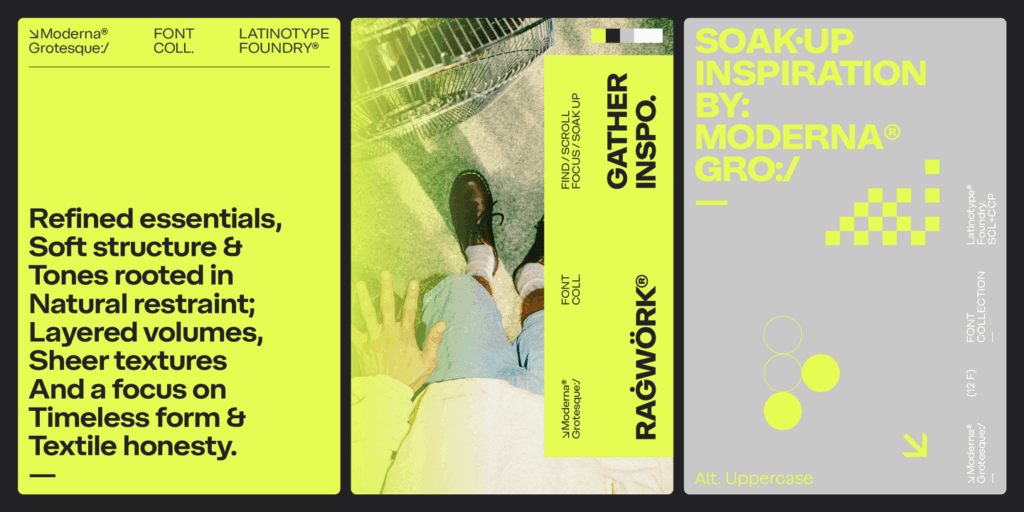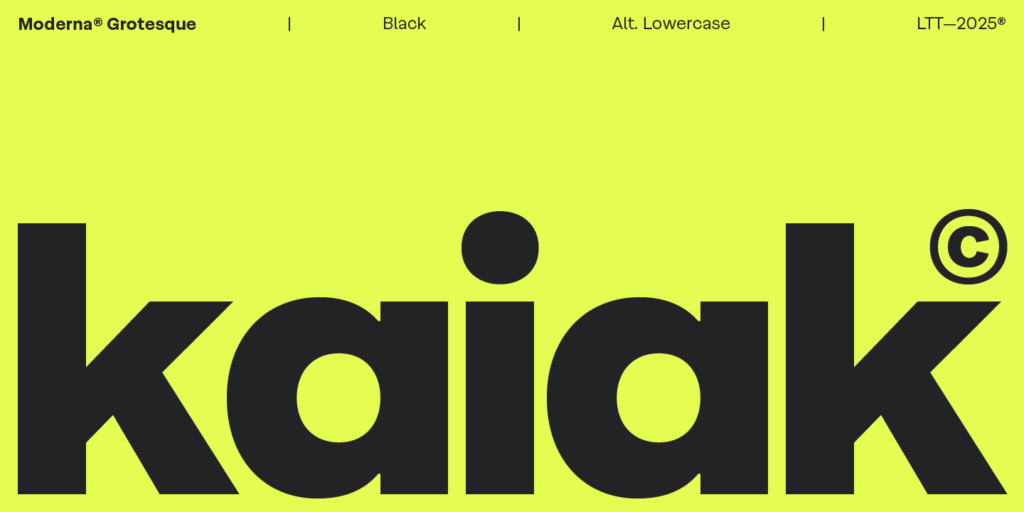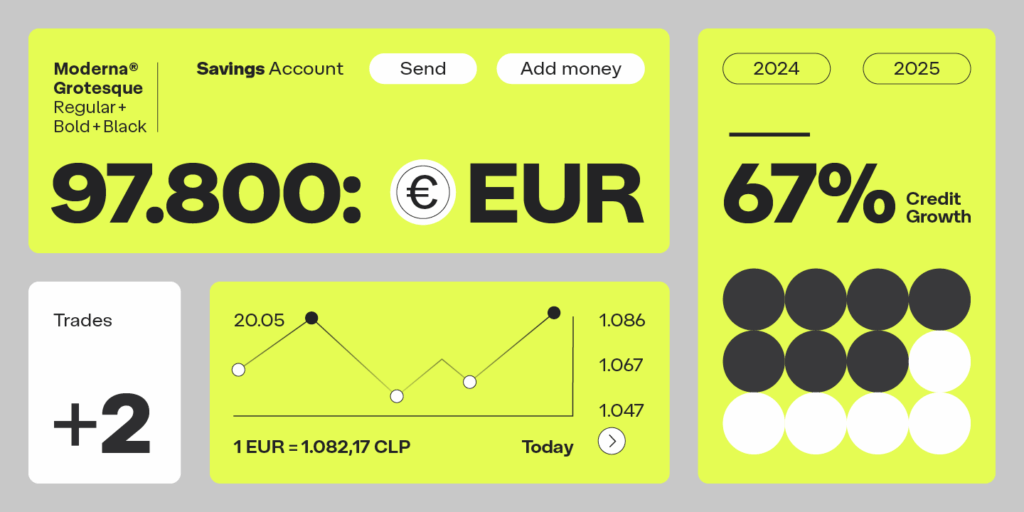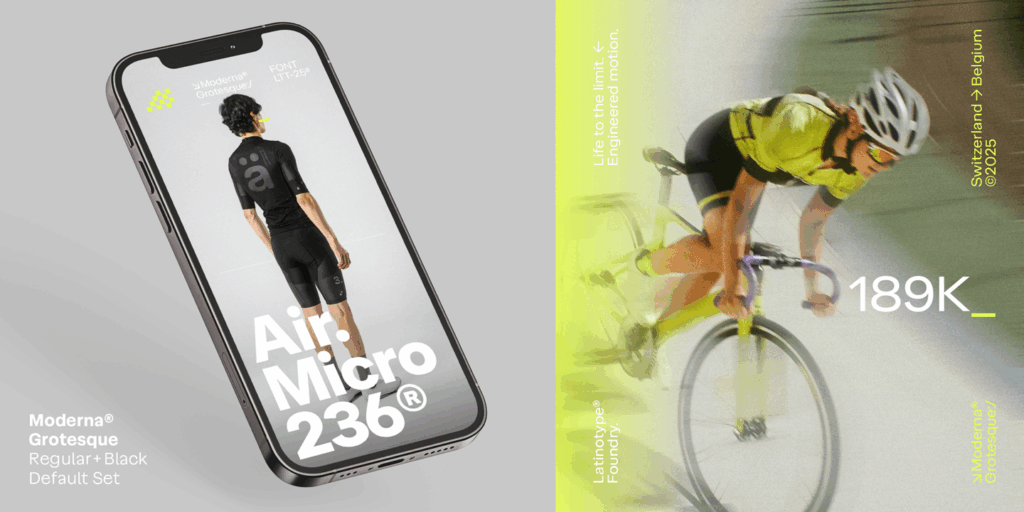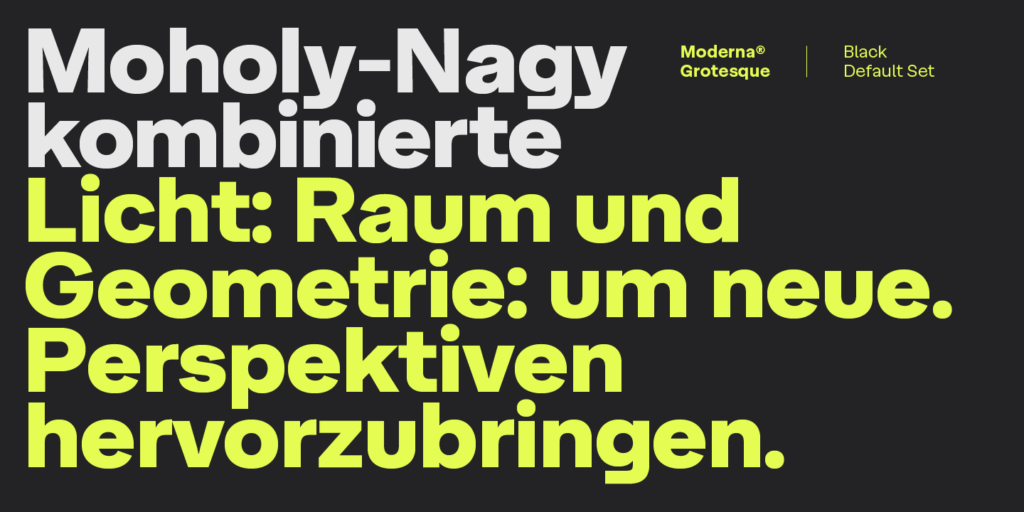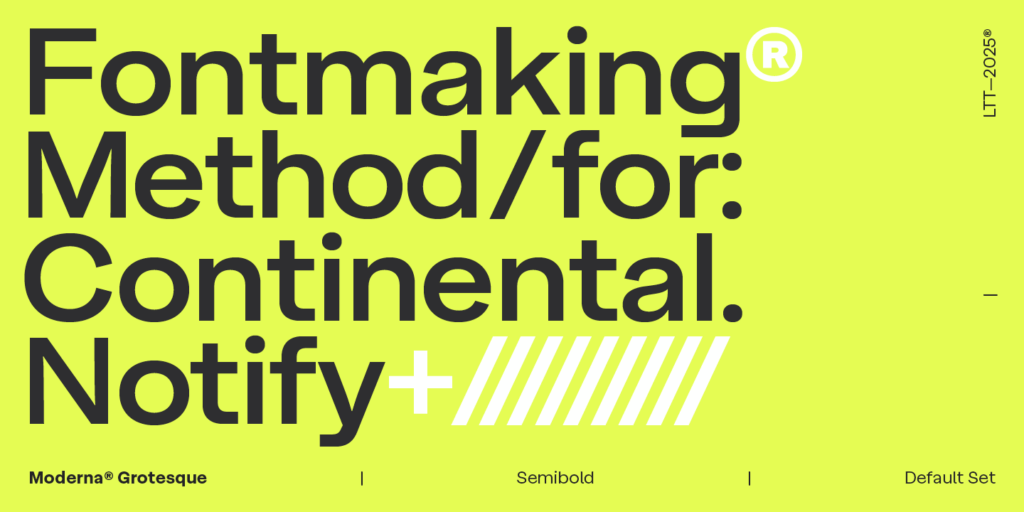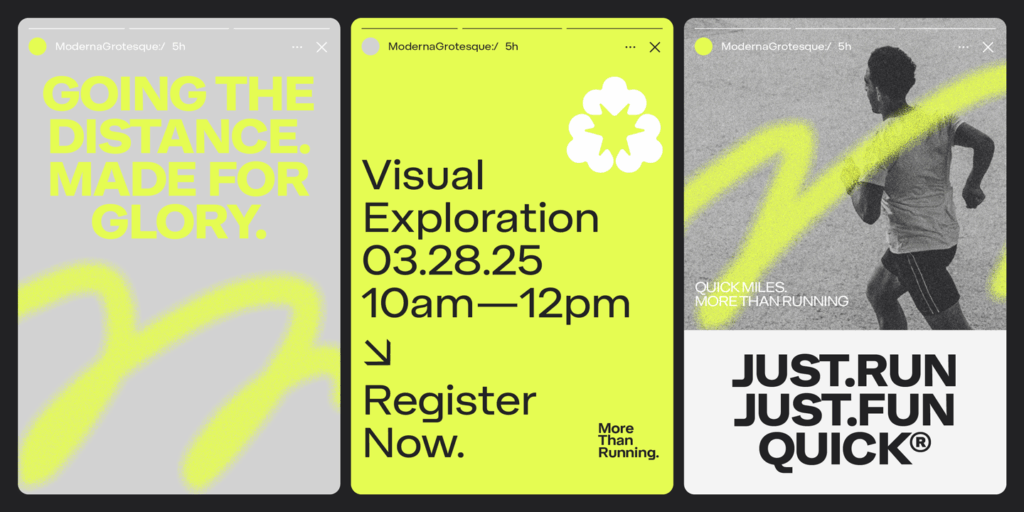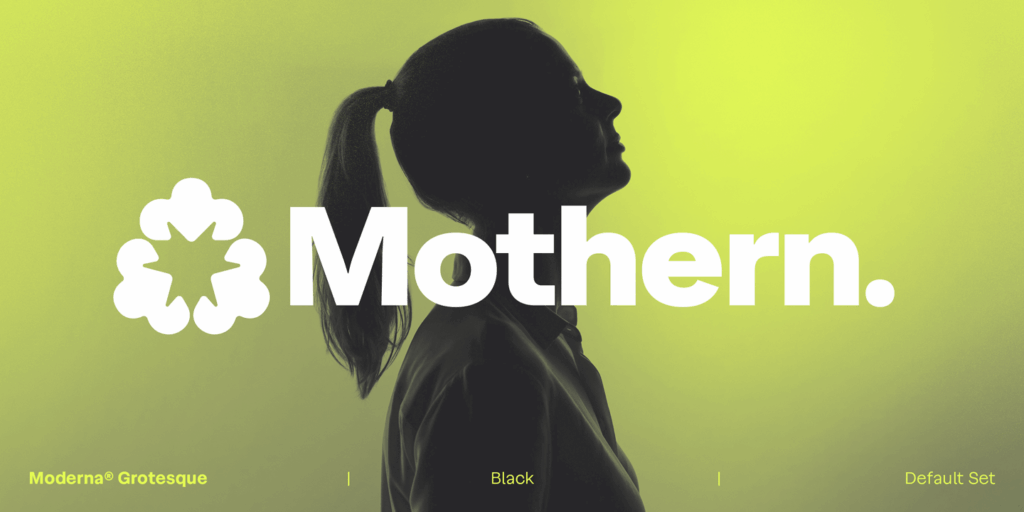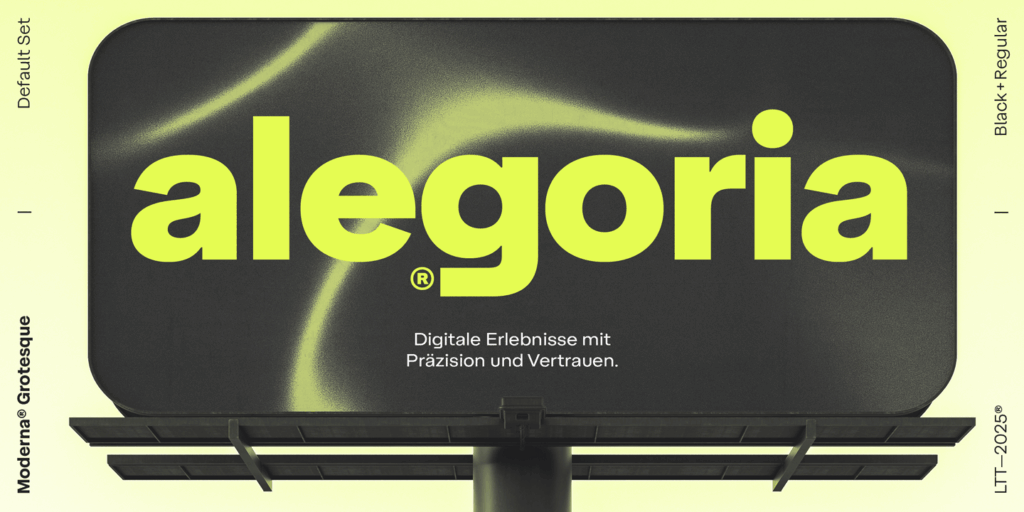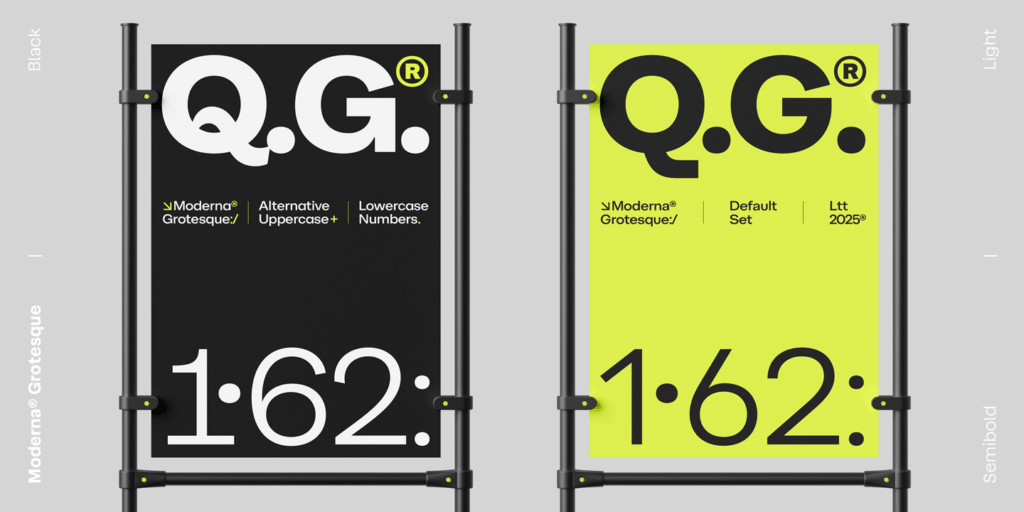
“A modern grotesque — clean, fresh, and made to be used.”
Grotesque heritage with contemporary purpose.
Moderna is a grotesque sans serif with geometric traits, precise terminals, and clean curves. It draws from early- to mid-20th-century sans serifs and their influence on visual culture, allowing it to move fluidly between functionality and expression while maintaining a clear typographic voice and a strong, confident structure.
Designed by Luciano Vergara, Moderna Grotesque reimagines the foundations of classic grotesques with a modern perspective. Its sober structure is complemented by alternate sets that broaden its expressive range, offering both geometric and straight variants. Balanced proportions and crisp terminals ensure excellent legibility at both small sizes and large scales, making it ideal for editorial design, branding, packaging, posters, and advertising.